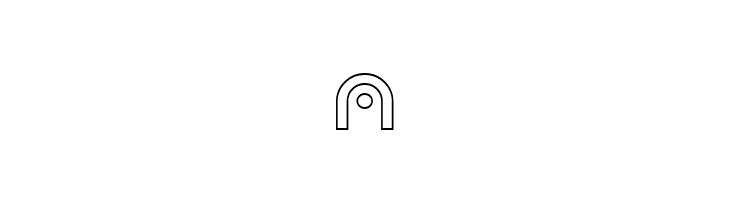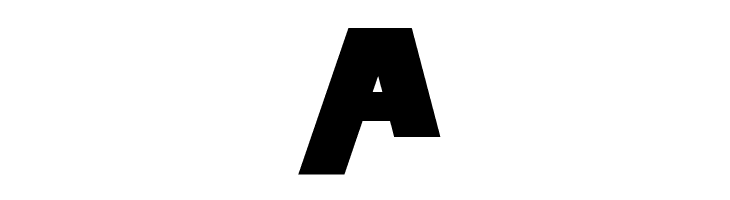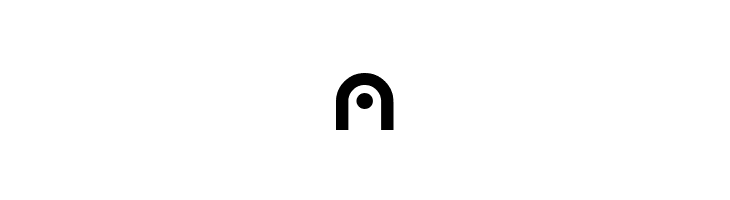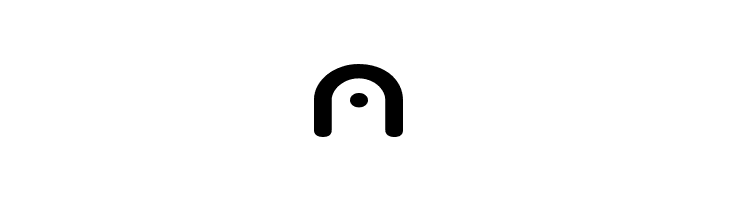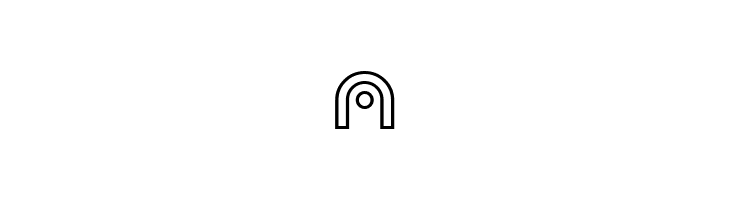
A futuristic, geometric font with rounded edges and a compact, bold style.
A futuristic, condensed italic font with rounded edges and unique cut-out sections.
A futuristic, geometric font with bold, rounded characters and unique cutouts.
A futuristic, italicized font with geometric shapes and smooth curves.
A futuristic, italicized font with bold strokes and compact spacing, perfect for modern designs.
A futuristic, geometric font with bold, condensed letterforms and circular cutouts.
A futuristic, geometric font with rounded edges and cut-out sections, ideal for tech themes.
A futuristic, condensed italic font with bold, geometric characters.
A futuristic, geometric font with bold lines and rounded edges.
A bold, expanded, and italic font with a futuristic, space-age design.
A futuristic italic font with geometric shapes and sharp angles.
A futuristic, italic font with bold, rounded characters and geometric cutouts.
A futuristic, geometric font with bold, rounded shapes and shadow effects.
A futuristic, italicized font with a bold, shadowed, and geometric design.
A bold, playful font with rounded, whimsical characters.
A playful, bold font with rounded edges and consistent stroke weight.
A bold, geometric font with a retro-futuristic style and strong visual impact.
A bold, futuristic font with geometric shapes and high contrast, ideal for modern themes.
A decorative and abstract font with geometric and whimsical elements.
A bold, graffiti-inspired font with a playful and dynamic style.
A bold, graffiti-inspired font with a playful, three-dimensional style.
A futuristic, shadowed italic font with dynamic and modern appeal.
A bold, futuristic font with geometric and uniform letterforms.
A sleek, futuristic italic font with clean lines and a dynamic style.
A modern, geometric font with a sleek and minimalistic design.
A sleek, futuristic light italic font with a modern geometric design.